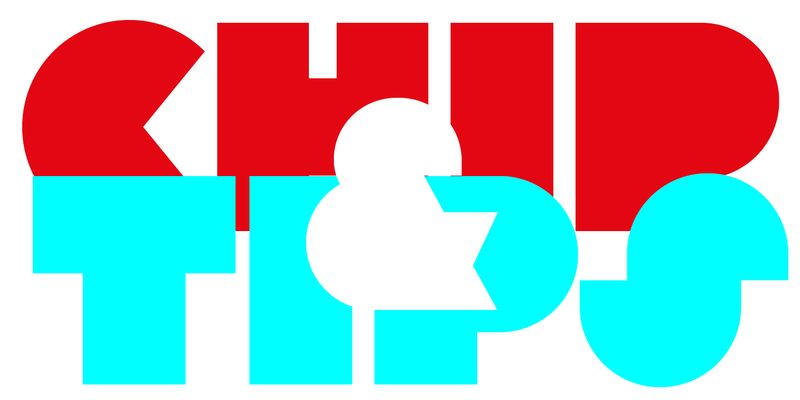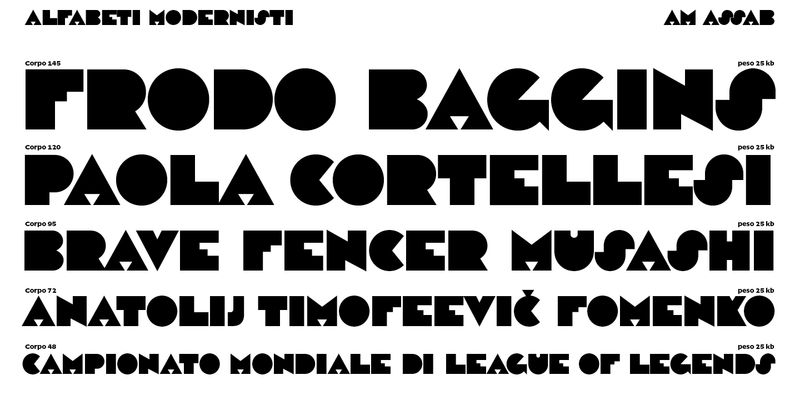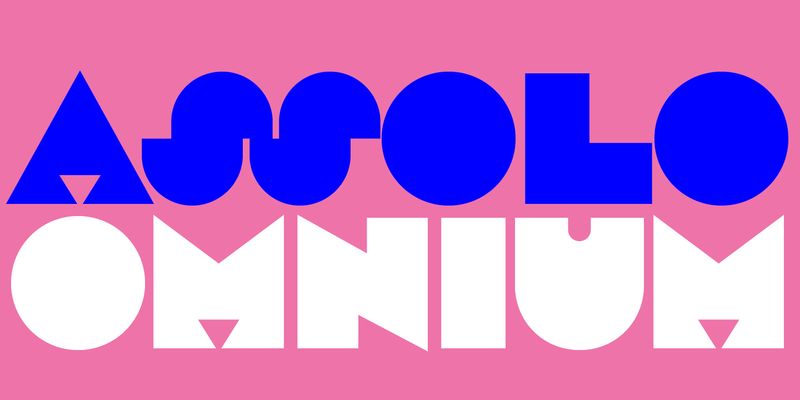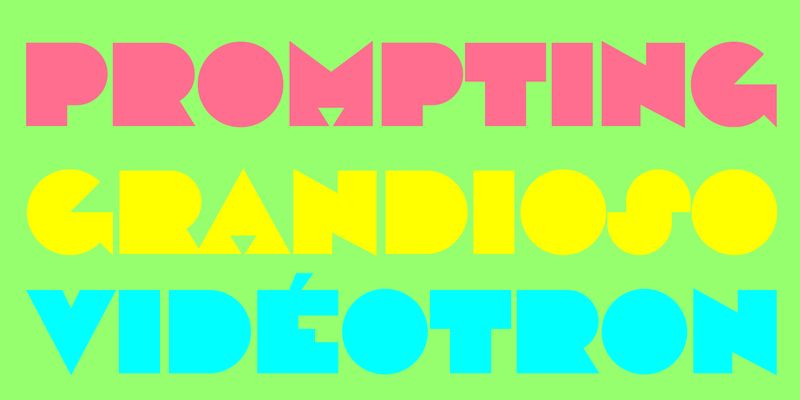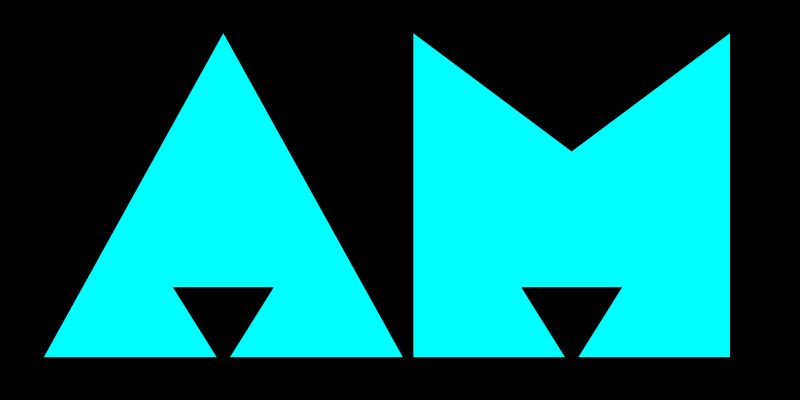
Assab is an all-caps geometric sans of elementary construction, based on circles, triangles and rectangles, with (almost) no contrast and no counters – only the open counters have been kept, such as in C, E and the like.
Assab was produced as a wood type by Xilografia Ruggero Zuliani & C. (Verona) in the early 1930s, when the company changed its name to Xilografia di Verona. Ruggero Zuliani must have been an important character in the wood type industry of the time, as he is also recorded as a director of Xilografia Italiana (Badia Polesine, near Verona) in its early years. We are sure that Luca Lattuga’s research will shed some light on this important chapter of Italian vernacular typography.
Assab interpreted the counterless sanserifs of the 1930s, a style of lettering popular in Italy in the growing field of advertising. It was a powerful expression of both Modernism and the Fascist regime, which used cutting-edge graphics of the time as corporate design. This kind of letterforms were incorporated into Fortunato Depero’s special variations of sanserifs and used in all kinds of graphic works. Baby Teeth, designed by Milton Glaser in 1964 for his famous Dylan record cover, can be considered the most famous heir of Assab and the counterless sans of the 1930s.
The AM Assab digital revival stays remarkably close to the original. The designer, Alessandro Bombieri says: ‘All the shapes have been rectified to polish up the roughness of the wooden letters and an alternative S has been added. In fact, the peculiar shape of S (two semicircles on top of each other) and the elementary design of the other Assab letters create small overlaps in letter combinations such as ST, SZ and LS. Barely noticeable in wood type printing, these overlaps can actually be avoided in the digital environment thanks to this new alternate S.’
Calt – Contextual alternate S